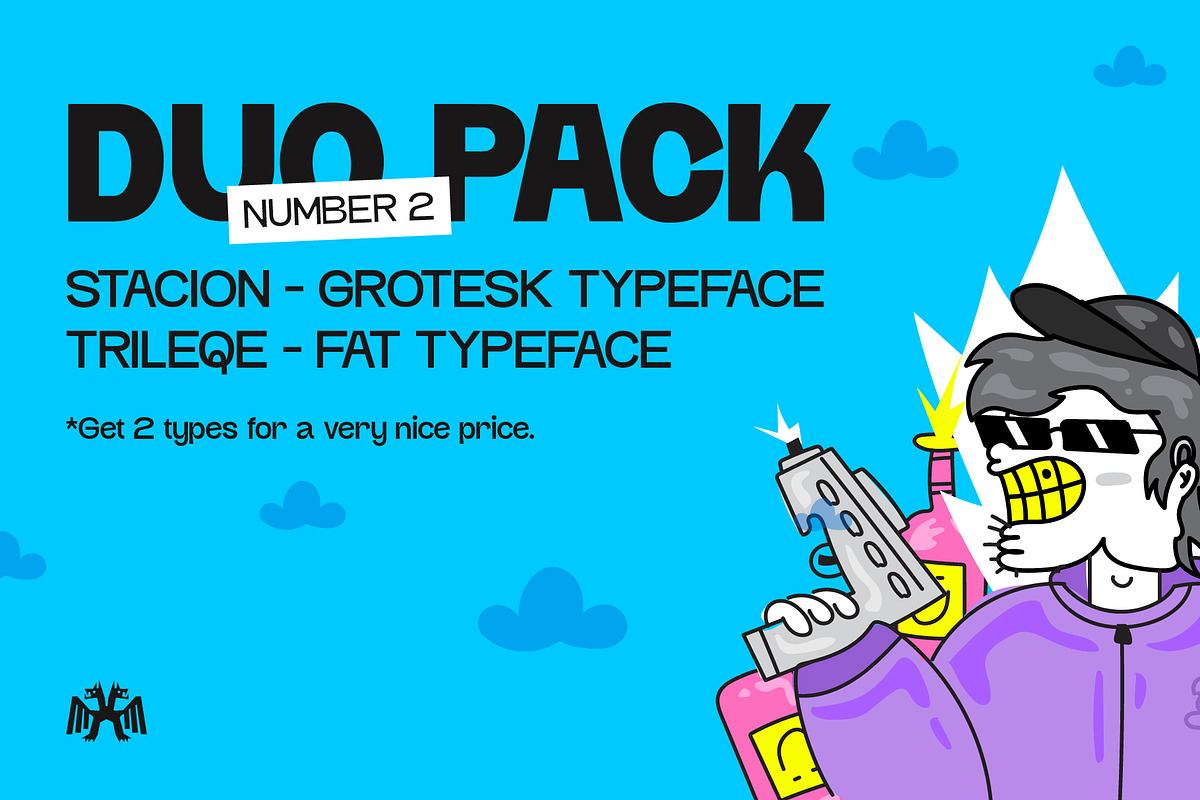
Trileqe + Stacion (Duo Font Pack) Free Download is a versatile and stylish font pack that includes two distinct typefaces designed to complement each other. Trileqe offers a bold, modern sans-serif with geometric precision, while Stacion brings a touch of elegance with its classic, clean lines and unique character shapes. Together, these two fonts create the perfect combination for any project that requires both strength and refinement.
Ideal for logos, branding, editorial design, posters, and websites, this duo provides flexibility and balance, giving your designs both a contemporary and sophisticated edge. Whether you’re working on a tech brand, an editorial layout, or an artistic project, Trileqe + Stacion will elevate your typography with ease.